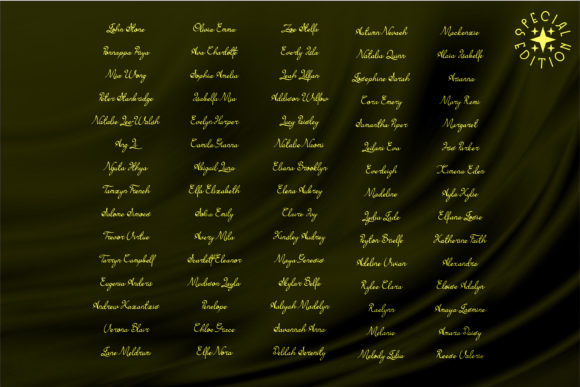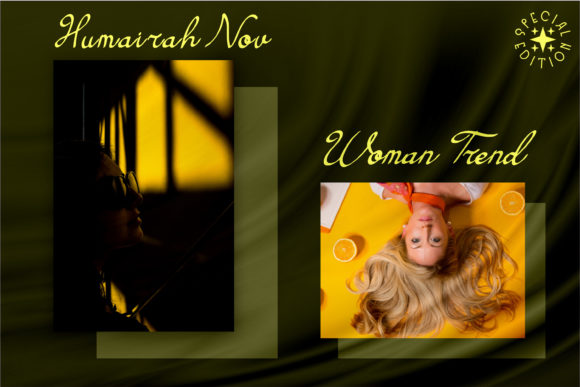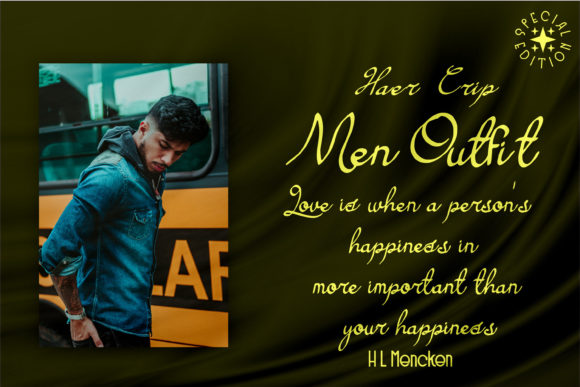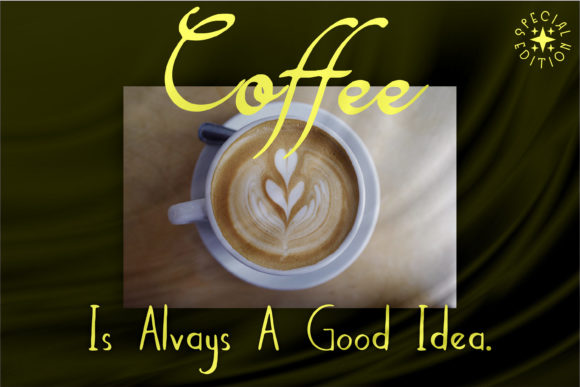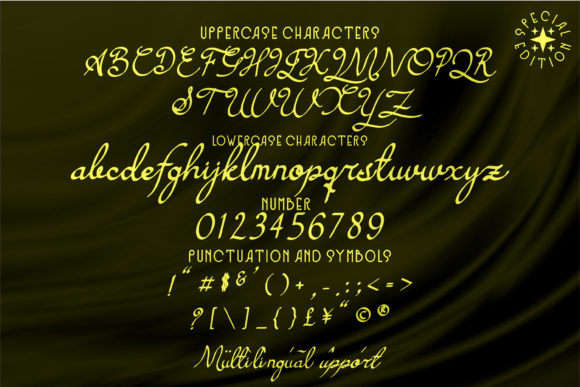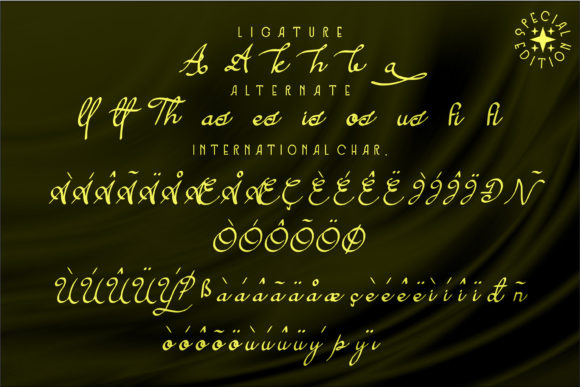
Introducing El Jhuan Font: Elevate Your Designs with Elegance
Are you a designer or crafter looking for a unique and luxurious font to elevate your projects? Look no further than El Jhuan Font, a beautiful handwritten font that is perfect for a wide range of applications. From logos and branding projects to homeware designs, product packaging, and more, El Jhuan Font is the perfect choice for those seeking a premium signature taste.
The Characteristics of El Jhuan Font
El Jhuan Font is a stunning handwritten font that boasts a range of characteristics that make it perfect for luxury projects. Its elegant and flowing lines, combined with its unique and distinctive style, make it a standout choice for designers and crafters. The font is highly versatile, making it suitable for use in a variety of contexts, from formal and professional to creative and playful.
What Can You Use El Jhuan Font For?
The possibilities are endless when it comes to using El Jhuan Font. This beautiful font is suitable for a wide range of projects, including:
- Logos and branding projects: Create a lasting impression with a custom logo that exudes elegance and sophistication.
- Homeware designs: Add a touch of luxury to your home decor with El Jhuan Font, perfect for wall art, throw pillows, and more.
- Product packaging: Stand out on store shelves with beautifully designed packaging that features El Jhuan Font.
- Mugs and ceramics: Create unique and personalized gifts with El Jhuan Font, perfect for coffee mugs, plates, and more.
- Quotes and posters: Add a touch of elegance to your inspirational quotes and posters with El Jhuan Font.
- Shopping bags and t-shirts: Create eye-catching merchandise with El Jhuan Font, perfect for retail and promotional items.
- Book covers and name cards: Add a touch of sophistication to your book covers and name cards with El Jhuan Font.
- Invitation cards and greeting cards: Create beautiful and elegant invitations and greeting cards with El Jhuan Font.
- Labels and photography: Use El Jhuan Font to add a touch of luxury to your labels and photography projects.
- Watermark and special events: Create a lasting impression with El Jhuan Font, perfect for special events and watermarking your designs.
Why Choose El Jhuan Font?
So why choose El Jhuan Font for your next project? Here are just a few reasons:
- Unique and distinctive style: El Jhuan Font boasts a unique and distinctive style that will set your projects apart from the rest.
- Elegant and sophisticated: This beautiful font exudes elegance and sophistication, making it perfect for luxury projects.
- Highly versatile: El Jhuan Font is highly versatile, making it suitable for use in a wide range of contexts.
- Easy to use: El Jhuan Font is easy to use and can be easily integrated into your designs.
Tips for Using El Jhuan Font
Here are a few tips for using El Jhuan Font in your designs:
- Use it sparingly: El Jhuan Font is a statement font, so use it sparingly to make a lasting impression.
- Pair it with other fonts: Experiment with pairing El Jhuan Font with other fonts to create a unique and eye-catching design.
- Experiment with colors: El Jhuan Font looks beautiful in a range of colors, so experiment with different hues to find the perfect fit for your project.
| Font Name | El Jhuan Font |
| Author | mahstudios |
In conclusion, El Jhuan Font is a beautiful handwritten font that is perfect for designers and crafters looking to elevate their projects with elegance and sophistication. With its unique and distinctive style, highly versatile nature, and ease of use, El Jhuan Font is the perfect choice for a wide range of luxury projects. Whether you’re creating logos, branding projects, homeware designs, or more, El Jhuan Font is sure to make a lasting impression.